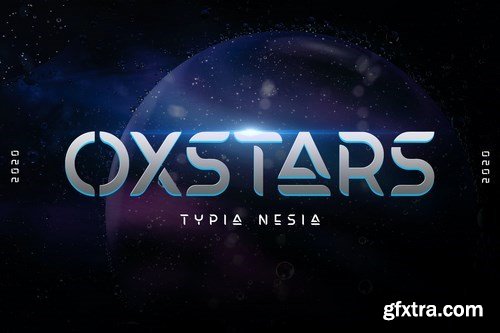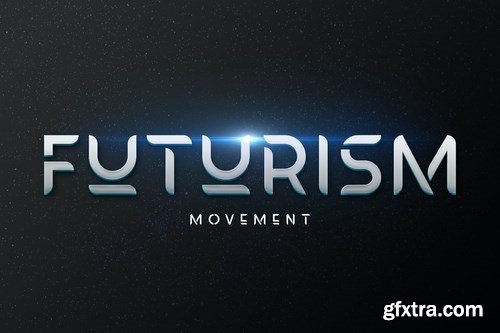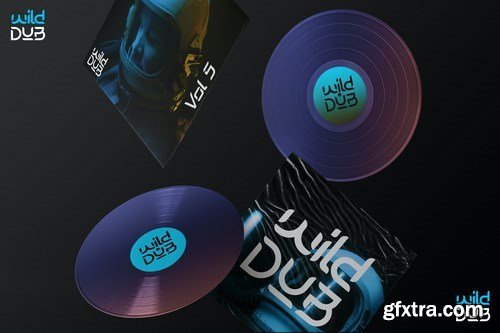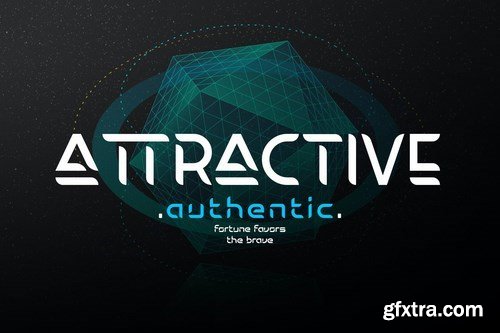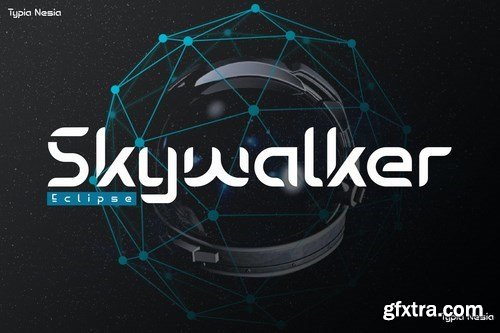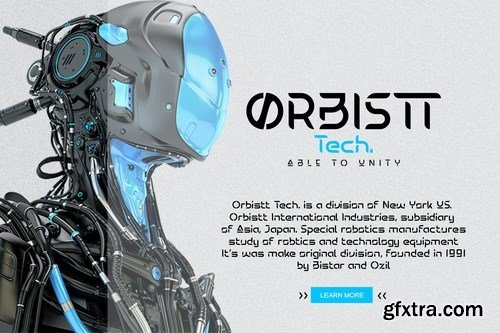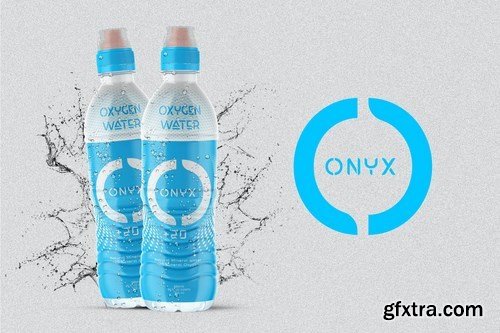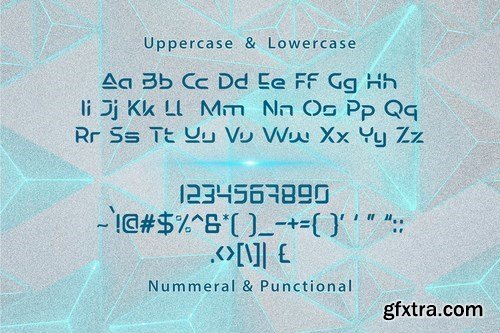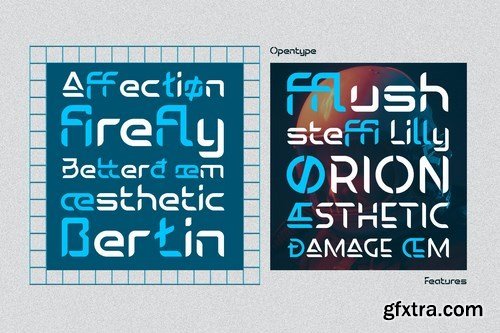
Oxstars - Future Display Font - Esport Gaming Font
Oxstars font can be used in different purposes: lettering and logotype, labels, t-shirts, product packaging, invitations, advertising, game industry, movie and any classic / vintage typography design projects . Oxstars (.ttf + .otf and webfont ) comes with upper and lowercase Standard Characters, Punctuation, Numerals. And other Glyphs variation of the OpenType features such as Stylistic Alternate, Stylistic Set and Ligatures. Includes a range of multilingual characters.